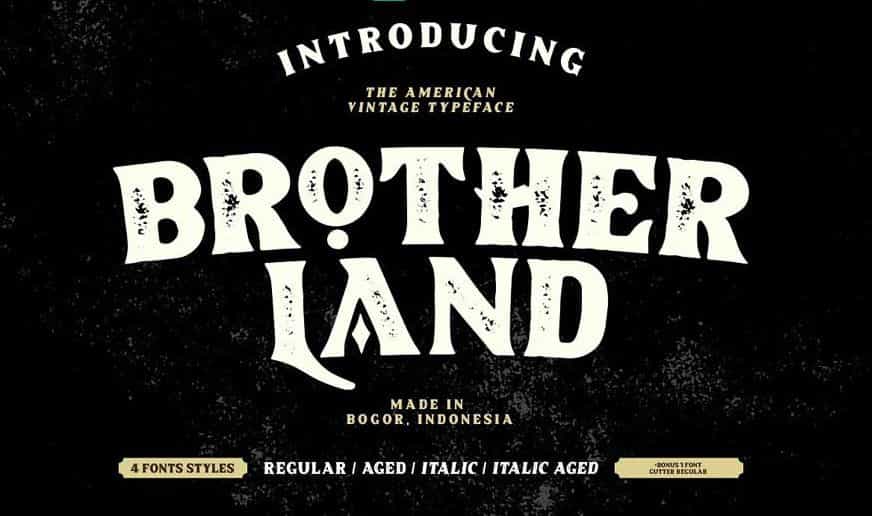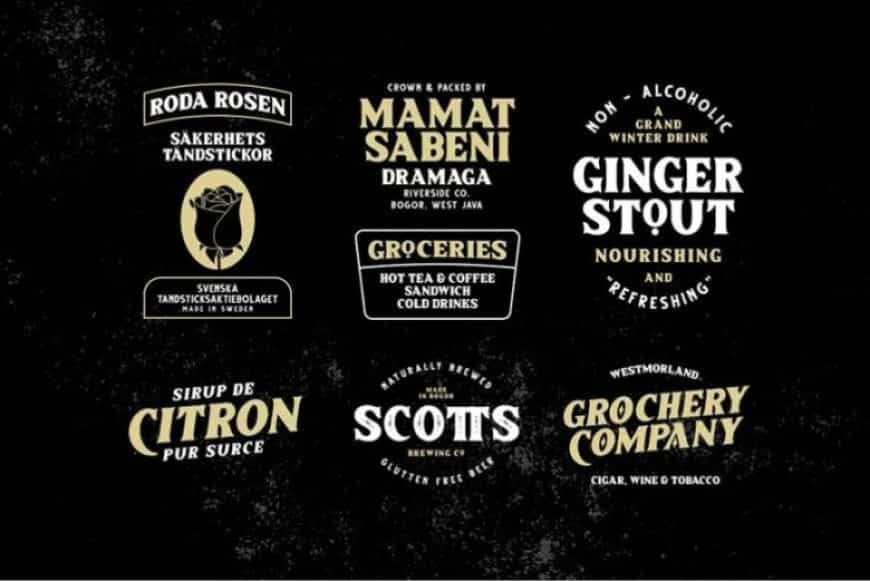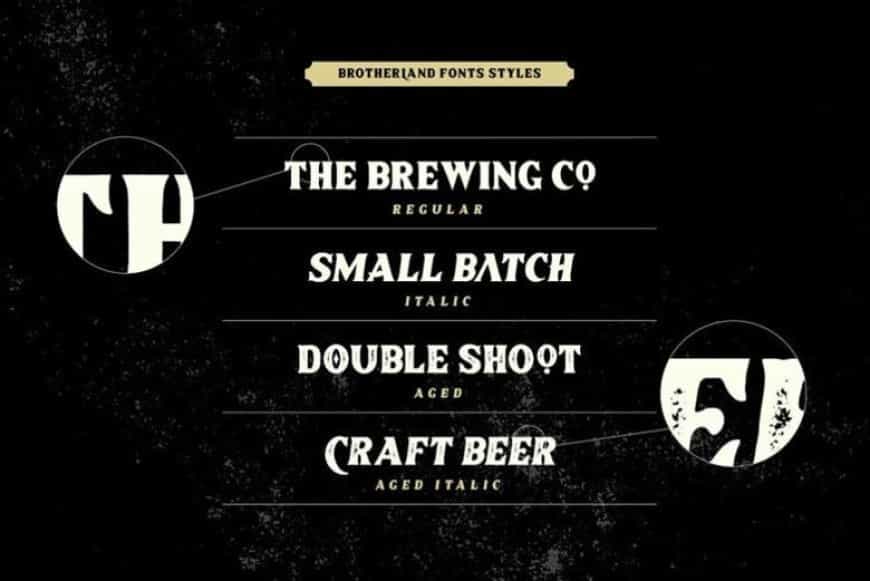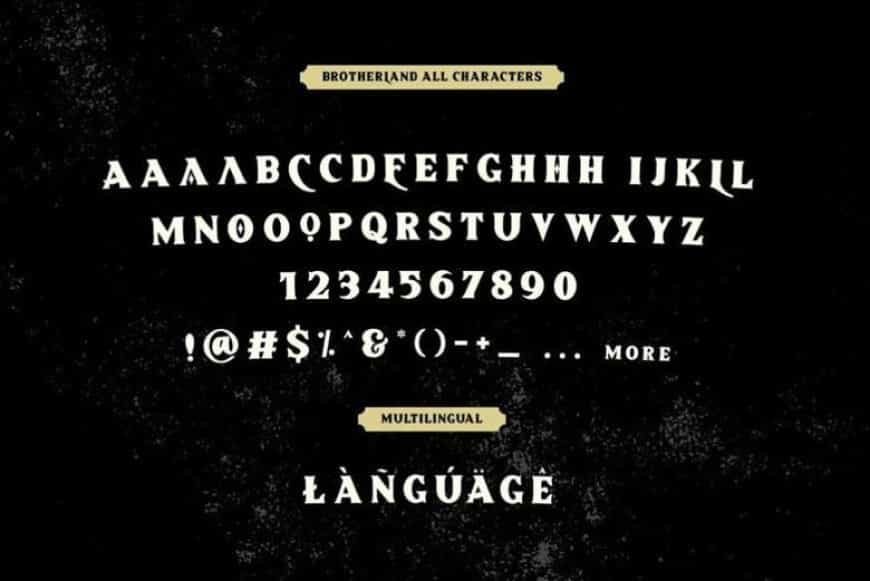
Brotherland gets its inspiration from classic display fonts used in American vintage design. A perfect fit for any design project with a simple style!